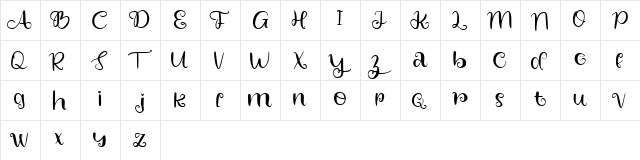
Christmas Wish Regular Font Preview
Christmas Wish Regular
Design Context for Christmas Wish Typeface
Christmas Wish is a composed and adaptable typeface that performs quietly and consistently across a wide range of design contexts.